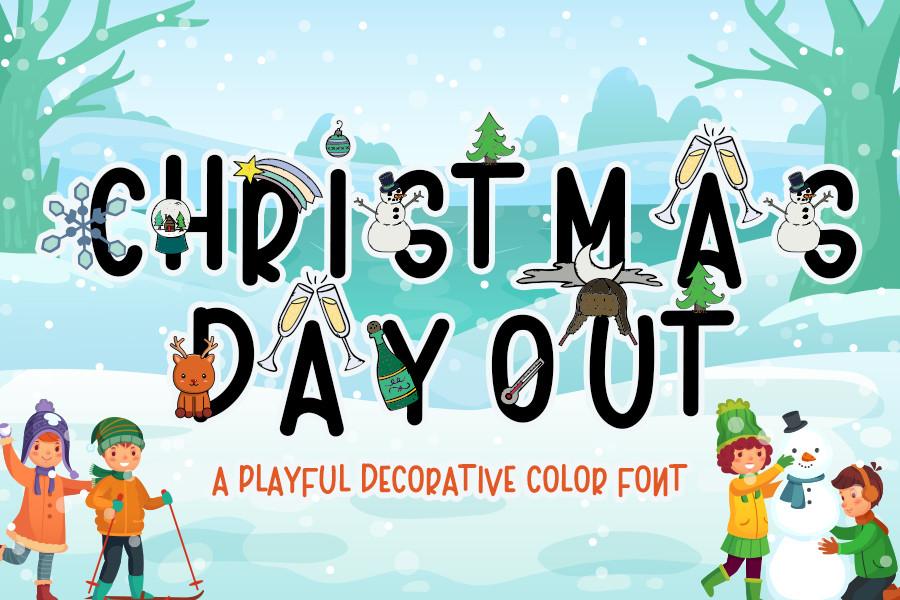
Christmas Day out Font Description
Christmas Day Out is a cute and simple lettered handwritten font that can be used for all chalkboard quotes or teaching material! This font is PUA encoded which means you can access all of the glyphs and swashes with ease!